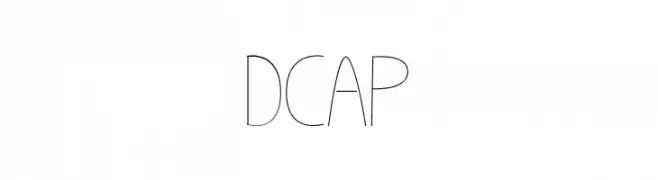
A bold, distressed font with a vintage, rugged texture.
A tall, narrow, and artistic font with a playful, hand-drawn style.
A playful, handwritten-style font with bold, rounded characters.
A playful, bold font with rounded edges and a retro-modern style.
A playful dingbat font featuring hand-drawn illustrations and icons.
Hand-drawn pictogram font with baby and family themes.
A playful, hand-drawn font with thin, elongated strokes and a whimsical style.
Bold, dynamic font with a slight slant and strong presence.
A bold, slanted uppercase font with a modern and dynamic style.
A playful, rounded font with a friendly and approachable style.
An elegant and whimsical serif font with decorative uppercase letters and balanced lowercase characters.
A decorative font with ornate curls and embellishments.
A bold, blocky font with a modern and impactful style.
A vintage decorative font with ornate serifs and intricate detailing.
A bold, expressive script font with a handwritten, decorative style.
An elegant, flowing script font with a handwritten style.
A bold, cursive font with interconnected, flowing characters.
A bold, expressive brush-style font with dynamic, hand-painted strokes.
A modern, geometric sans-serif font with clean lines and uniform strokes.
A bold, modern sans-serif font with clear, evenly spaced characters.
A bold, condensed font with geometric shapes and clean lines.
A modern, condensed font with a clean and professional appearance.
A clean, modern sans-serif font with a slightly condensed structure.
A modern, hollow geometric font with clean lines and balanced proportions.
A modern, geometric sans-serif font with clean lines and excellent readability.
A modern, light, and condensed sans-serif font with a clean and streamlined appearance.